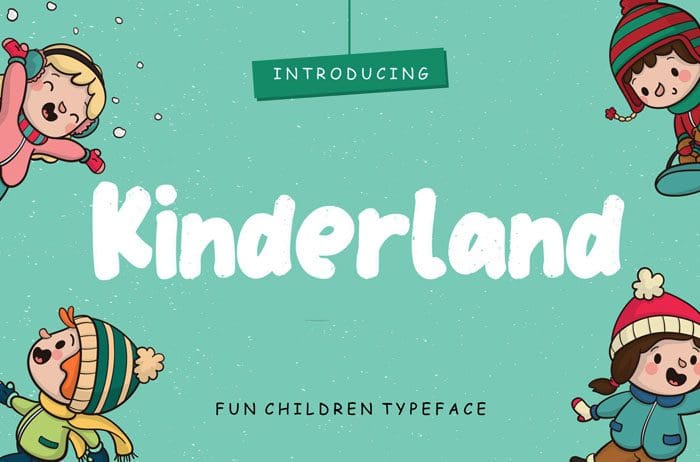
Kinderland Display Font
Kinderland is a fun children Display Font which perfect for children and kindergarten events. Kinderland is perfect for branding projects, logo, social media posts, product packaging, product designs, label, watermark, invitation, stationery and more. Thanks to Creatype Studio for sharing this font! Take a look at this portfolio for more of his stunning fonts.